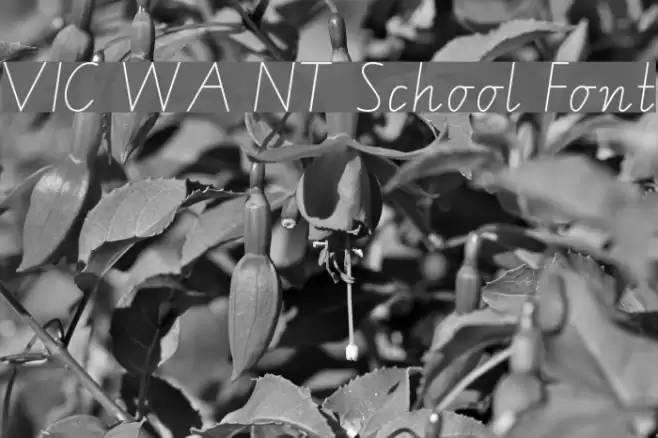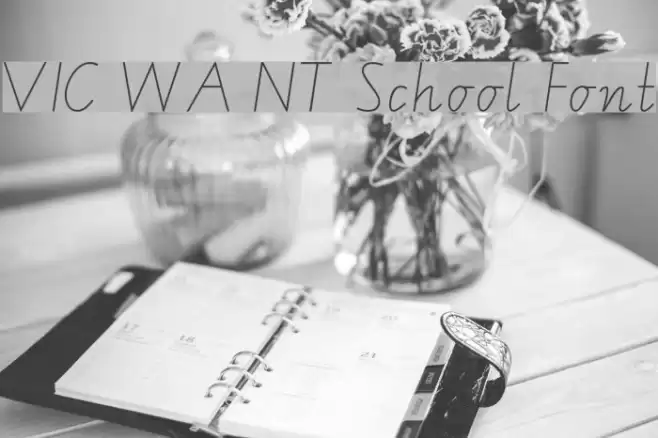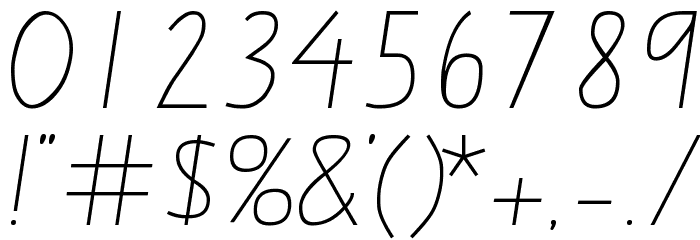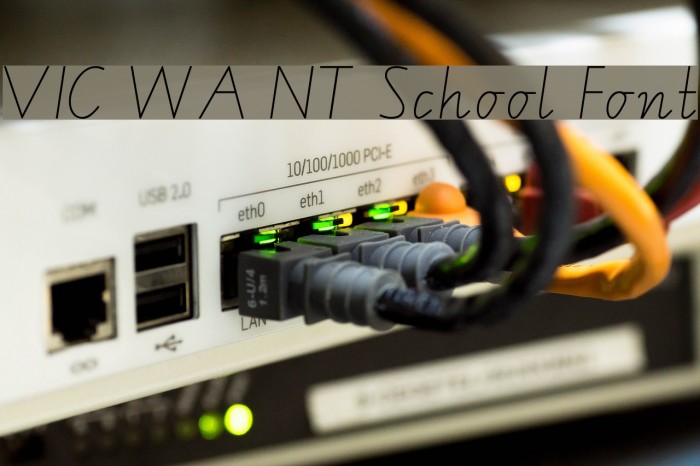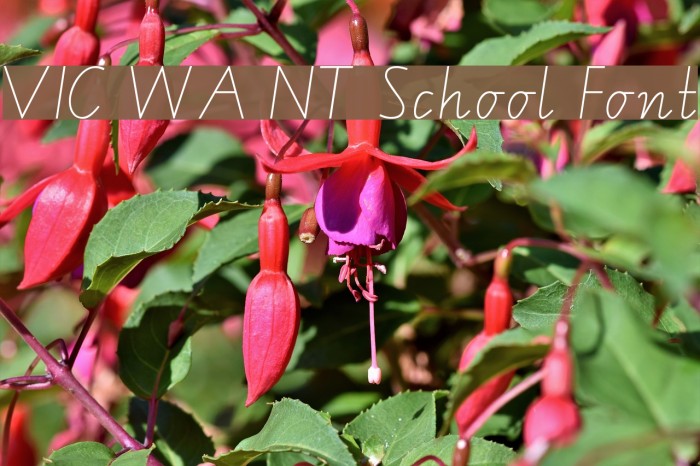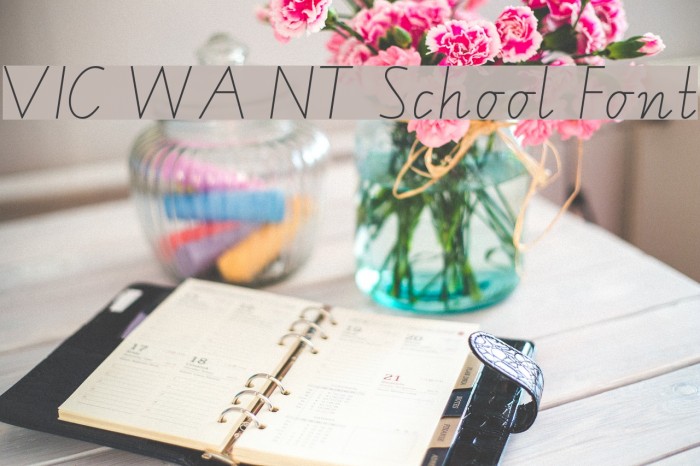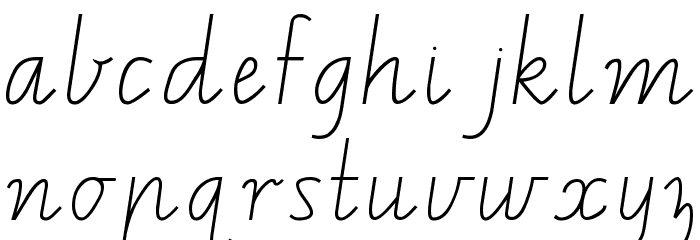
VIC WA NT School Font Font
VIC WA NT School Font Description
This font features a clean and simple handwritten style, characterized by its smooth, flowing lines and slightly slanted letters. The uppercase letters maintain a consistent height, while the lowercase letters exhibit a gentle curve, adding to the font's approachable and friendly appearance. The numerals are clear and easy to read, with a uniform height that matches the uppercase letters. Special characters are well-integrated, maintaining the overall aesthetic of the font. The design is minimalistic, making it suitable for educational materials or informal communications.
A clean, handwritten-style font with smooth, flowing lines and a friendly appearance from Uncategorized fonts.
- Proposed Projects: Ideal for educational materials, children's books, informal invitations, and personal notes.
- Overall Style: Casual
- Use Case: Educational materials, informal communications